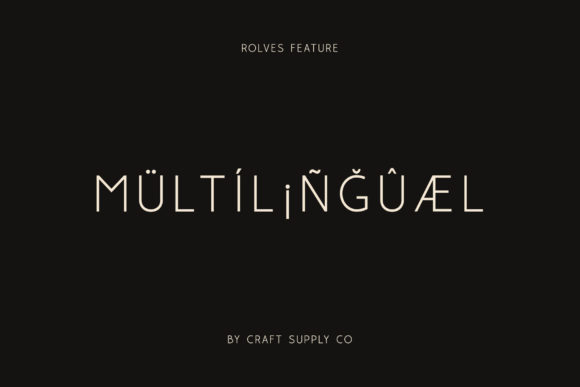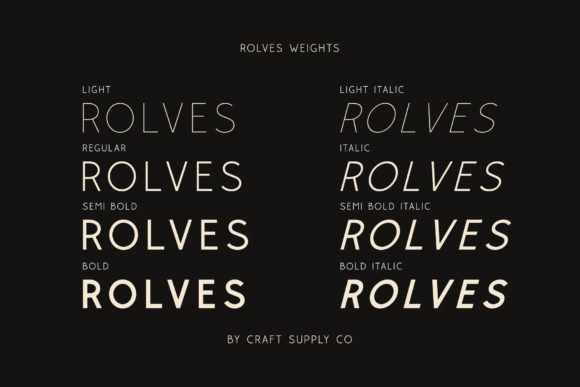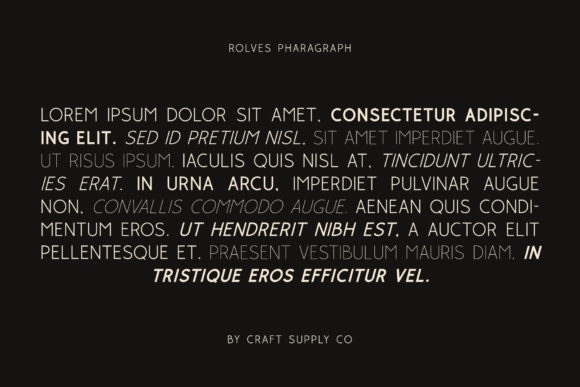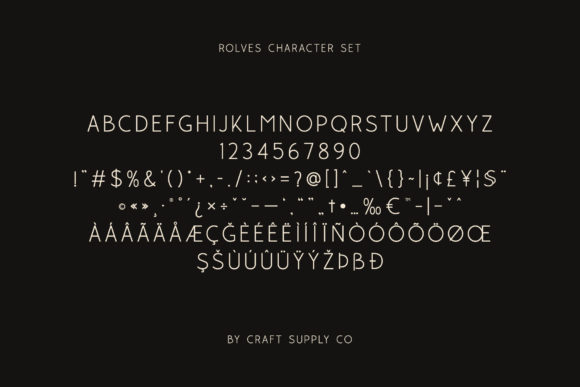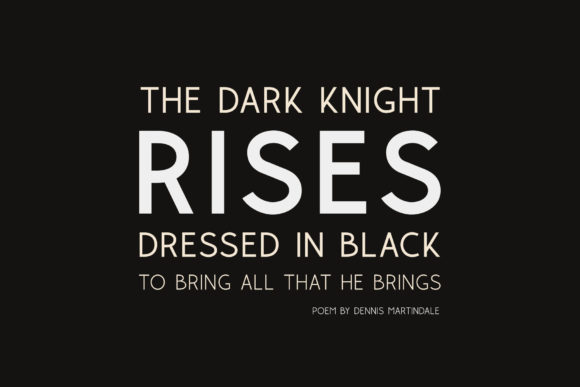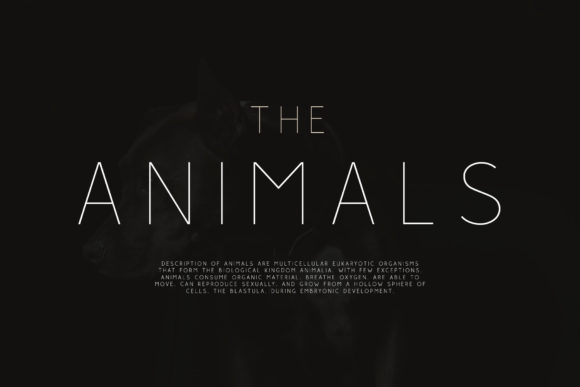
Introduction to Rolves Font
Imagine you’re working on a creative project, pouring your heart and soul into every detail, and then it hits you – the perfect font to elevate your design. For designers, finding that one special font can be a game-changer. That’s where Rolves Font comes in – a sleek and modern sans serif font that adds a touch of sophistication to any project.
With its contemporary twist, Rolves Font is an excellent design resource for those looking to create a high-quality visual identity. Whether you’re working on a personal or professional project, this versatile font is sure to impress. Plus, with a transparent background, it’s easy to incorporate into your design without any distractions.
Key Features of Rolves Font
- High-quality, professional design suitable for creative projects and designs
- Transparent background, allowing for seamless integration into various design elements
- Features a unique, modern aesthetic with a range of styles and weights to suit various design needs
- High-resolution design, suitable for print and digital applications up to 300 DPI
- Perfect for designers and artists working on creative projects, from logos and branding to typography and graphics
Honest Review: Rolves Font
As a designer, I’m always on the lookout for high-quality design resources that can elevate my creative projects. Recently, I stumbled upon the Rolves Font, and I’m excited to share my honest review with you.
Here are the things that work well for me: ✨
- Unique and elegant design aesthetic
- High-quality vector graphics that are perfect for logos, titles, and headings
However, I do have some concerns: ⚠️
- Limited font styles and weights, which may not be suitable for complex typography projects
- Transparent background option can be a bit finicky to work with, especially when combined with other design elements
Overall, I’m impressed with the Rolves Font, and I would recommend it to designers who are looking for a high-quality, free design resource for their creative projects. While it may not be perfect, it’s definitely a solid choice for those who want to add a touch of elegance to their designs.
Rolves Font is ideal for creative projects, such as:
– Business cards
– Brochures
– Flyers
– Logos